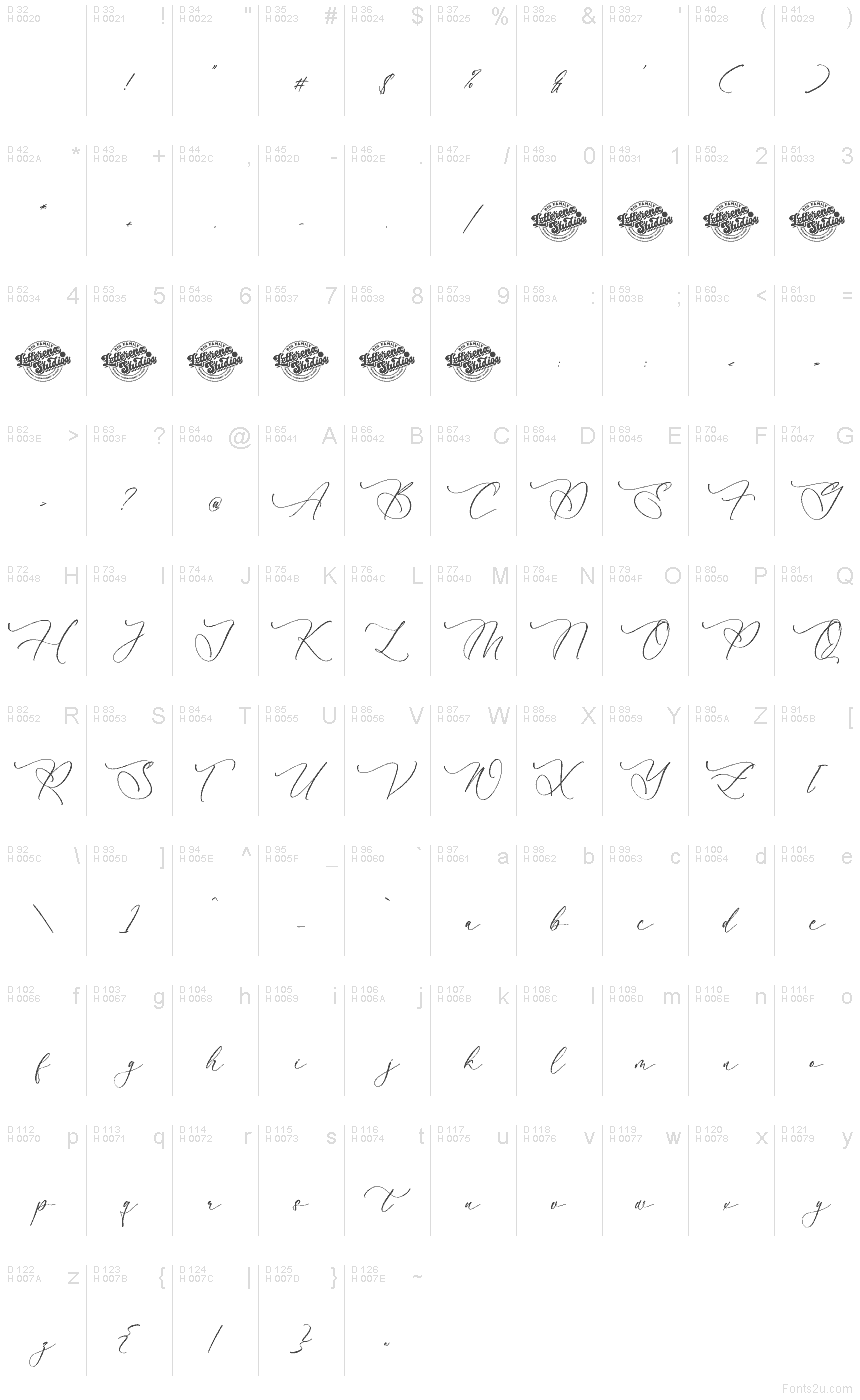
Augusthin Beatrice DEMO VERSION
Augusthin Beatrice font by Letterena Studios is a free light handwritten signature script font. Drawn with whisper-thin monoline strokes, it sweeps into airy swashes and a gentle, dancing rhythm that feels like fresh ink on smooth paper. The spacing breathes just enough to keep those elegant loops readable, lending a polished, high‑end gloss without losing the warmth of a personal signature.
Using Augusthin Beatrice, branding and wedding suites really sing—think boutique logos, save‑the‑dates, invitation headlines, beauty packaging, photography watermarks, and social headers. The delicate forms shine at larger sizes and on tactile print finishes like foil or letterpress. For balance, pair this free font with a crisp serif or a quiet grotesk in small caps, and add a touch of tracking to let the hairlines glow.